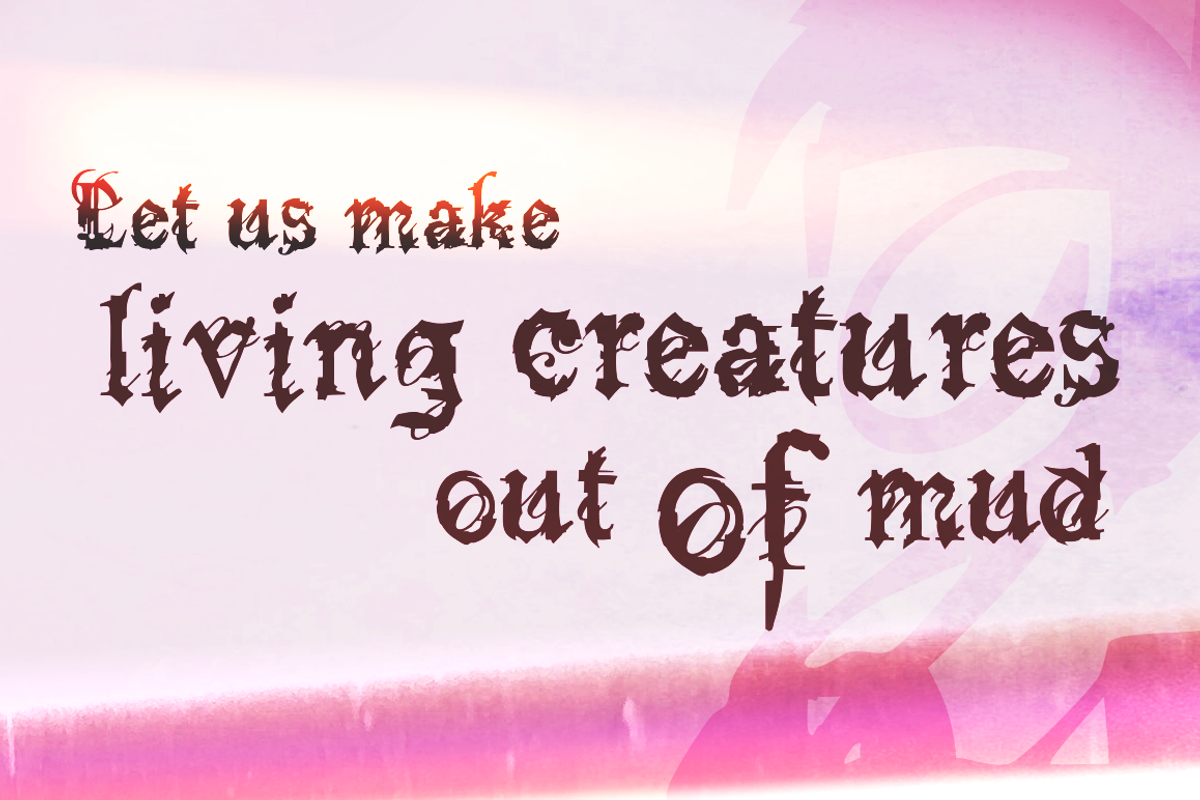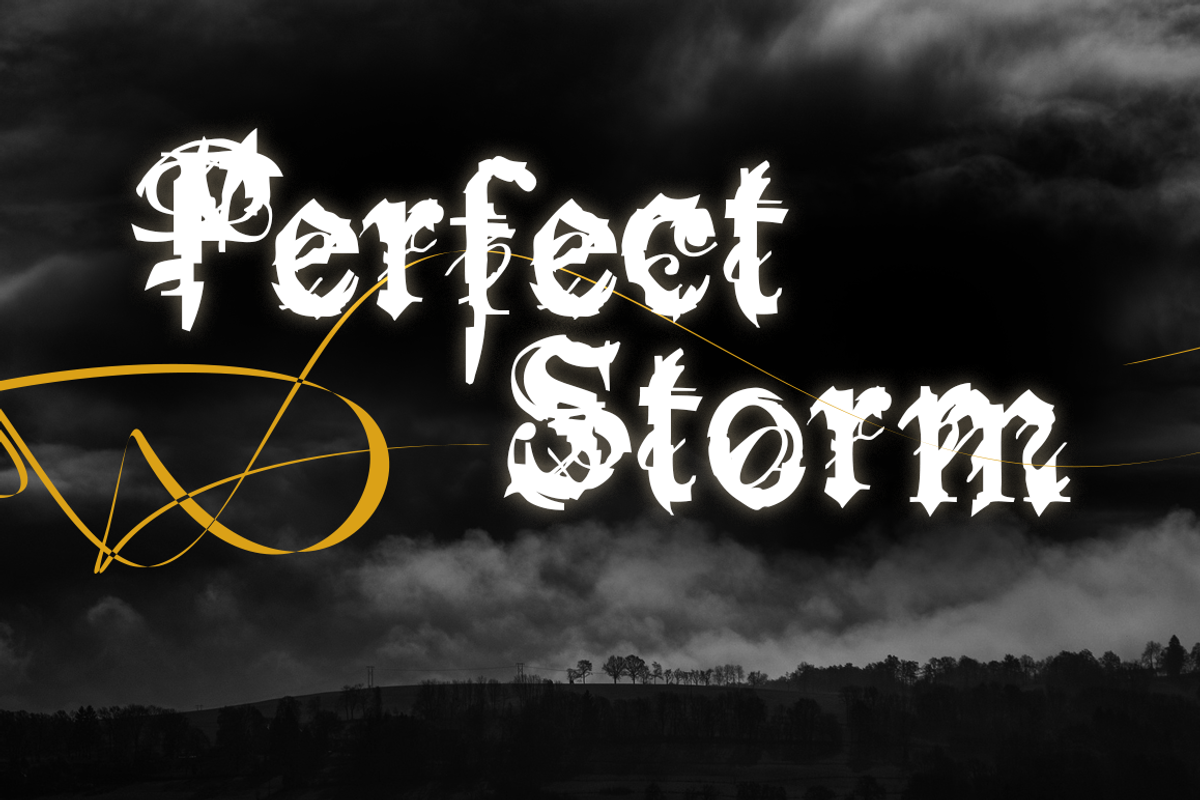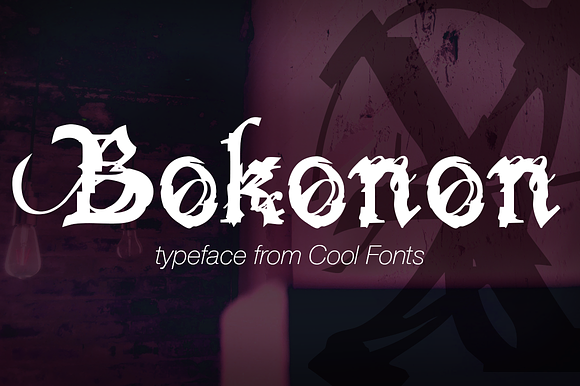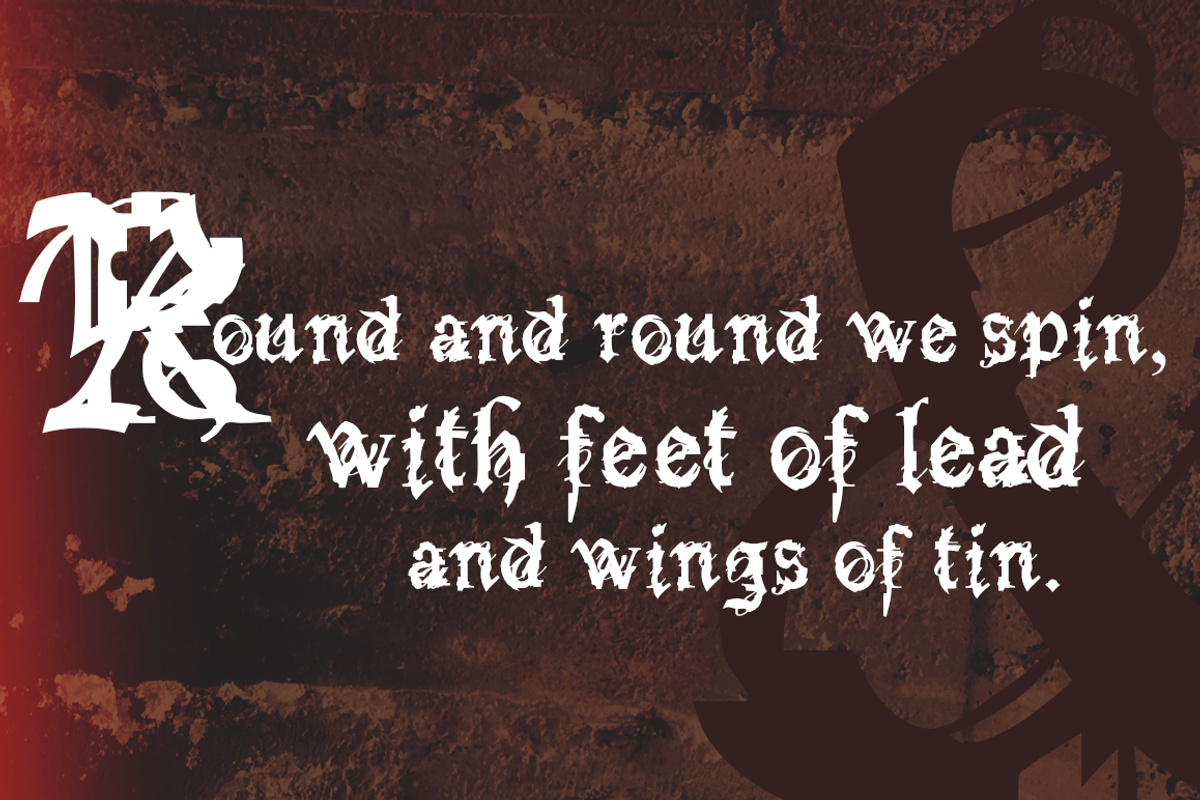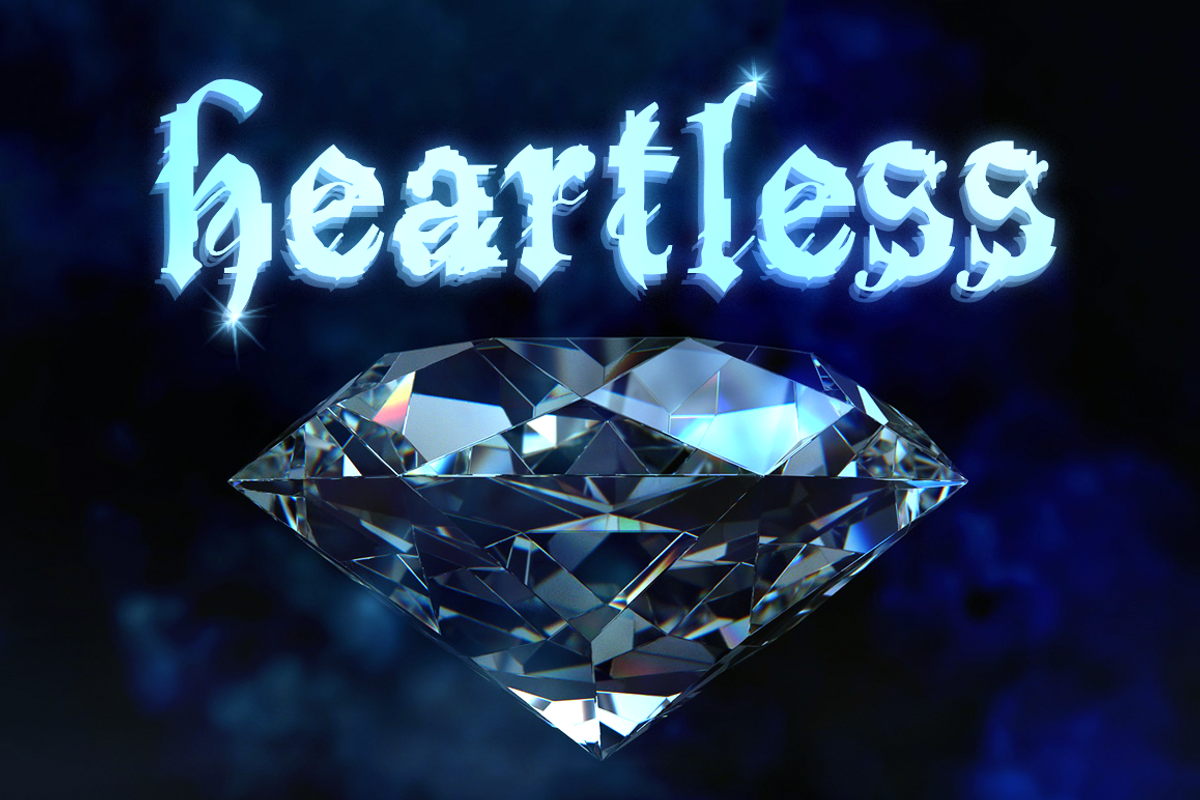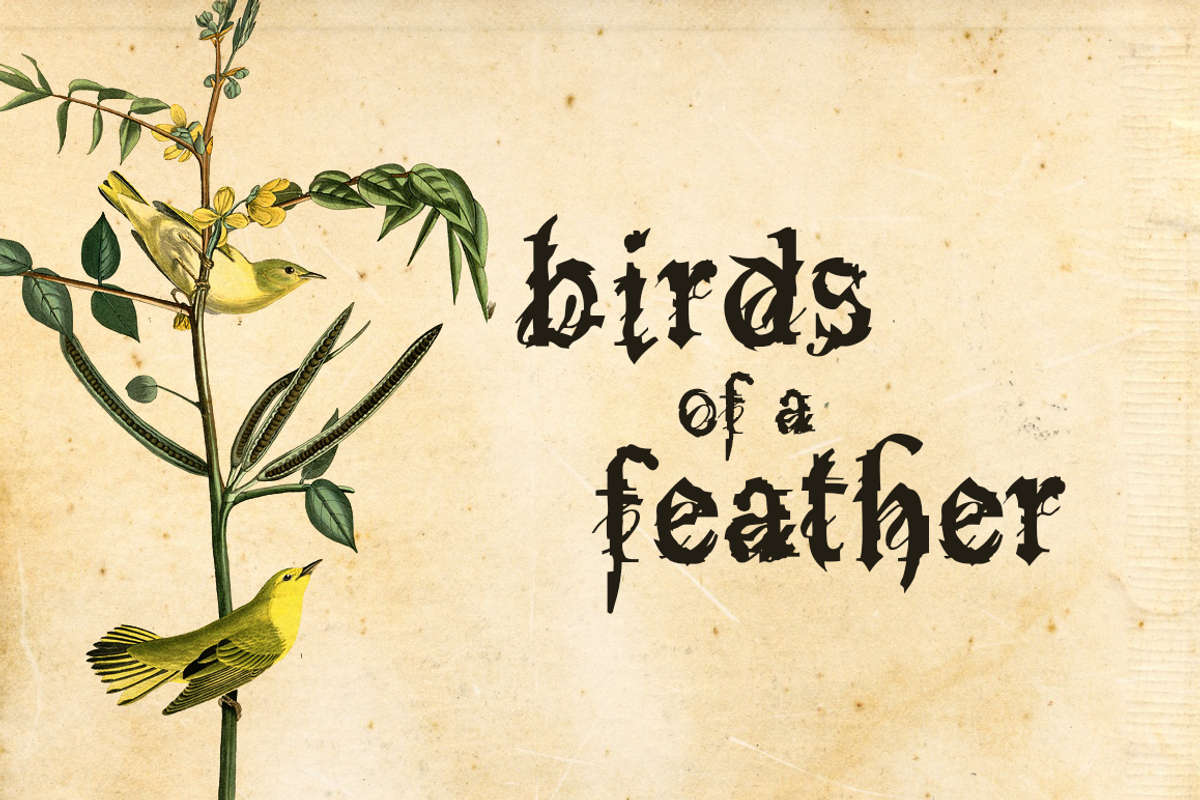
Bokonon
Bokonon is flexible enough to be used for anything from classic to grunge. It's mutated take on classic type forms is really interesting and is sure to become one of your favorites. It feels old and modern at the same time and would look great as a logo, tattoo, letterhead, goth wedding invitations?... you name it. This font includes numbers, punctuation and accents. Pass the Ice 9 please.
Why Bokonon is worth a look
Bokonon by Cool Fonts fits naturally into Branding, posters, packaging, typography.